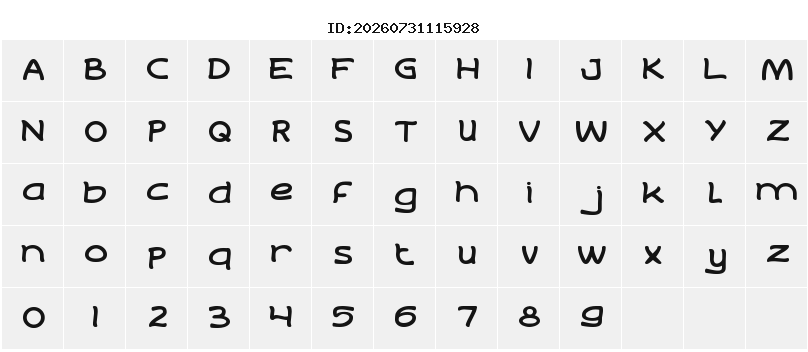
• Font Name: Life to Find
• Full Font Name: Life to Find
• Version: Version 1.00 January 11, 2014, initial release
About Life to Find.ttf
Life to Find.ttf is a modern, elegant sans-serif font designed for ultimate readability and visual harmony. Perfect for branding, headlines, web design, and print materials.